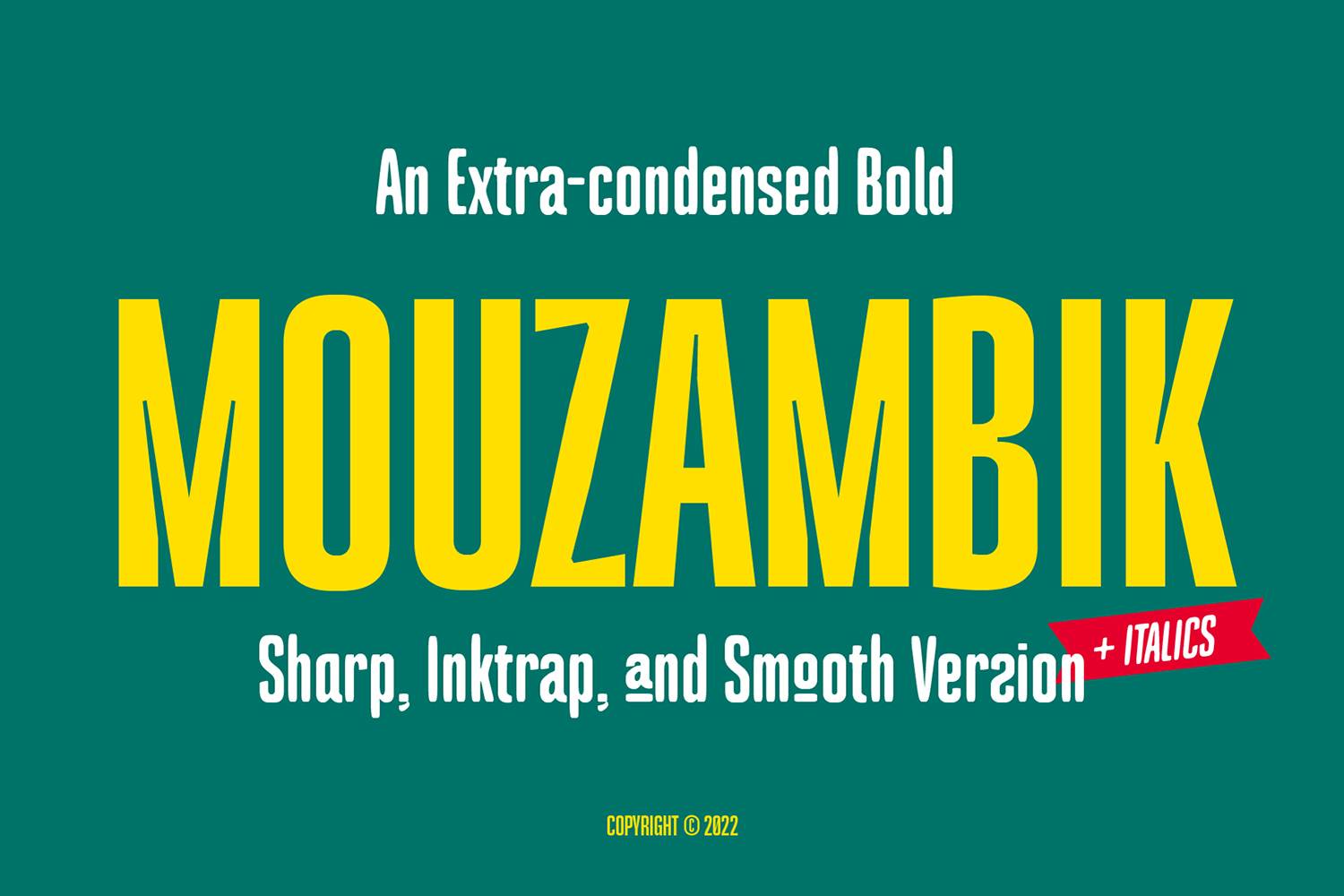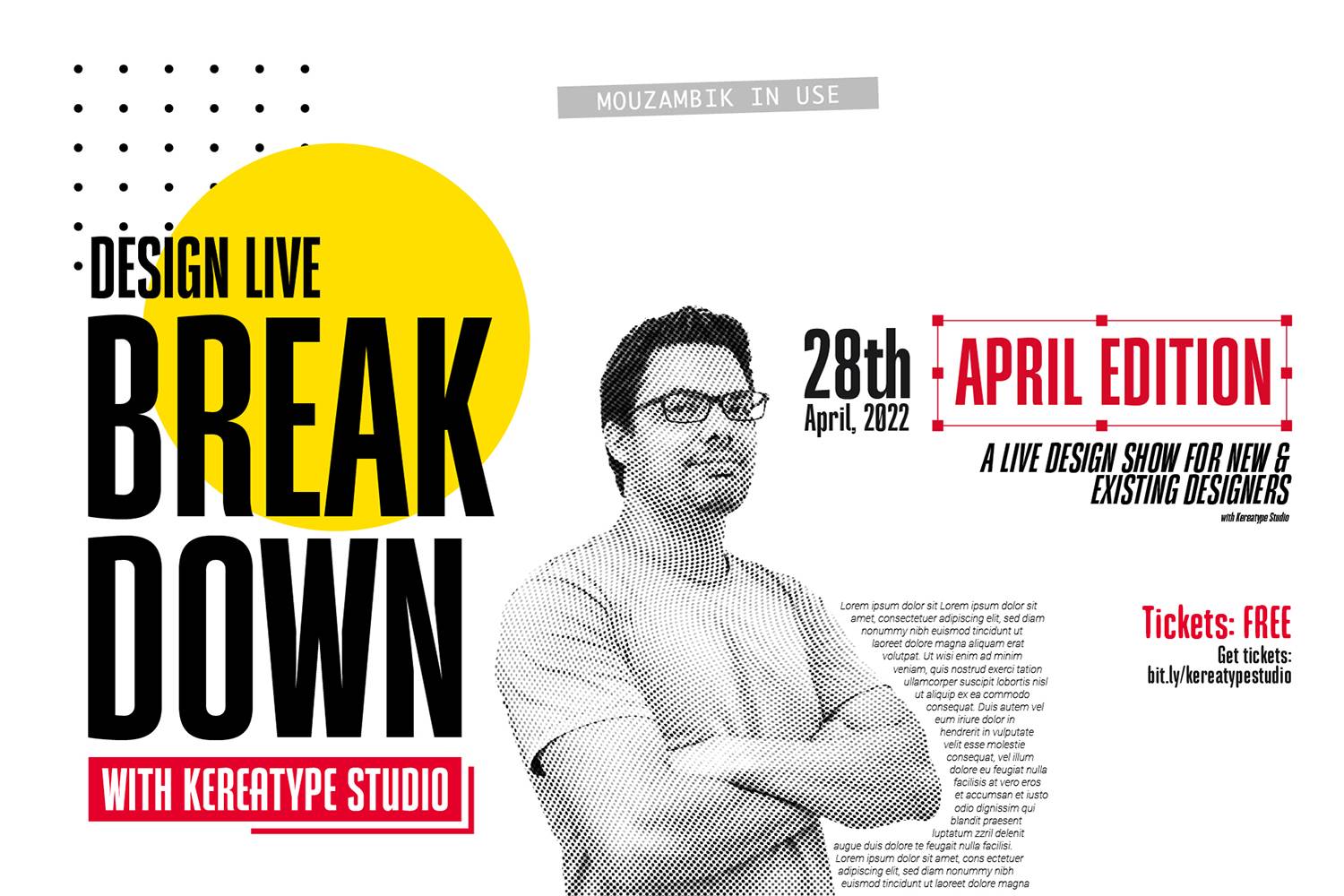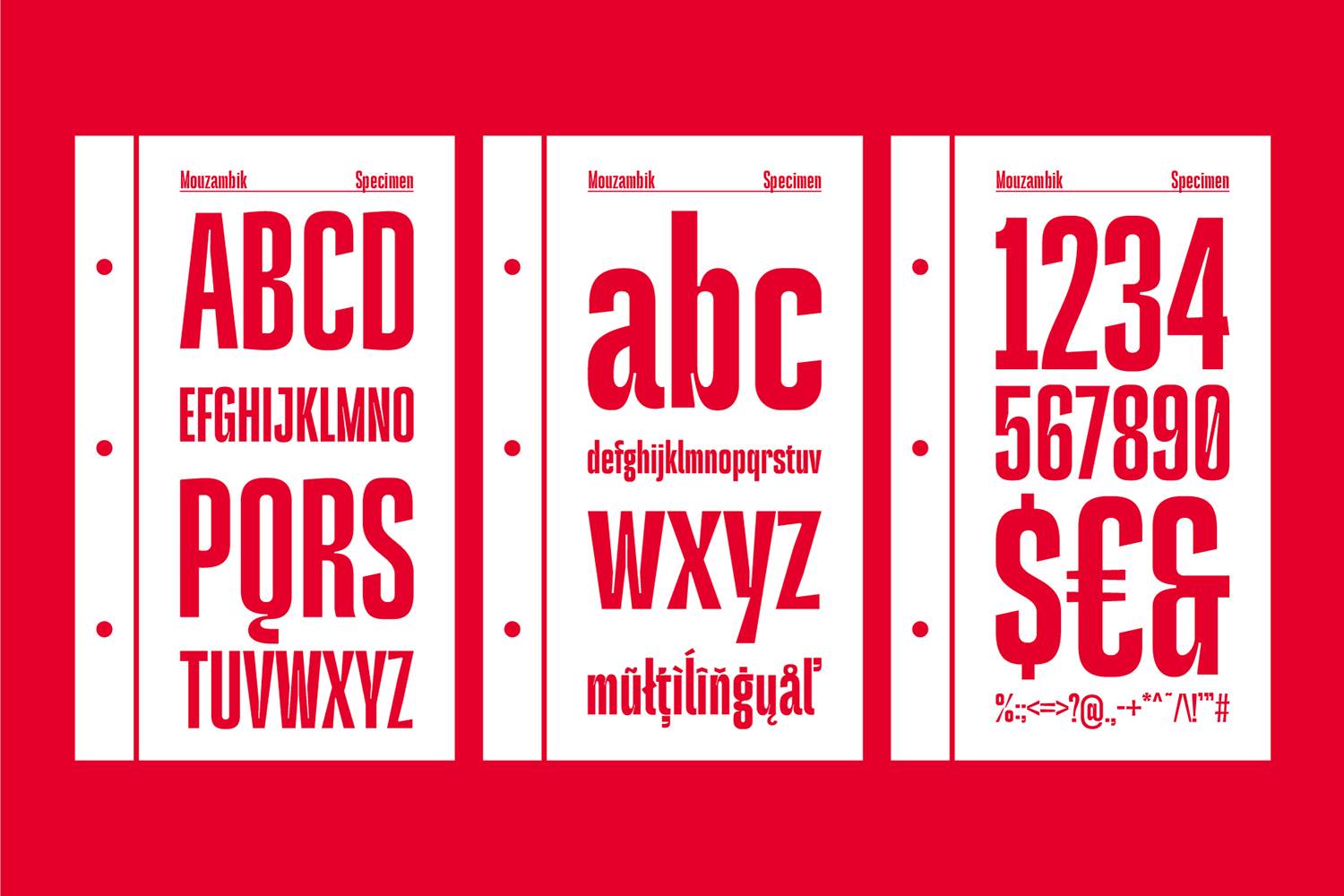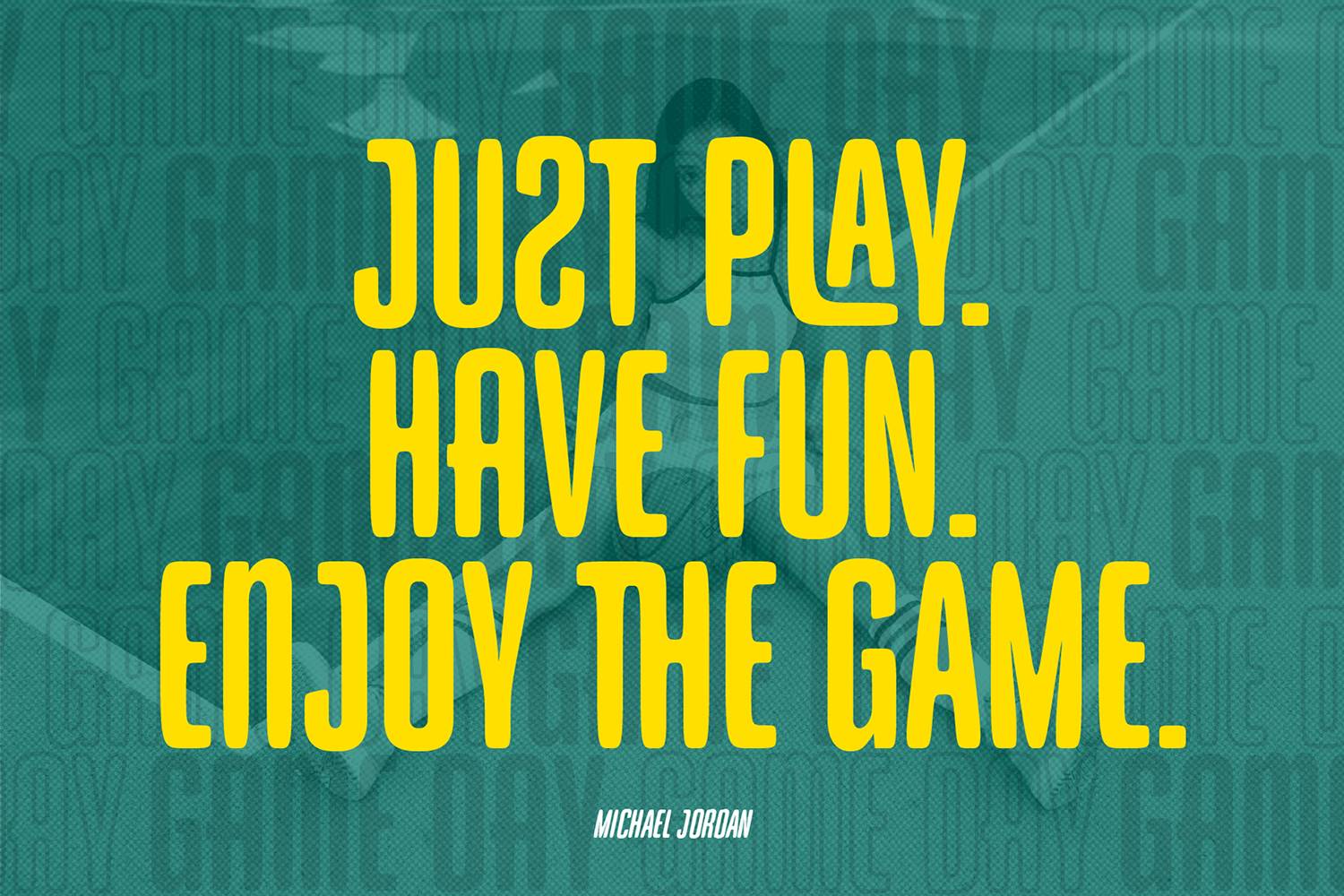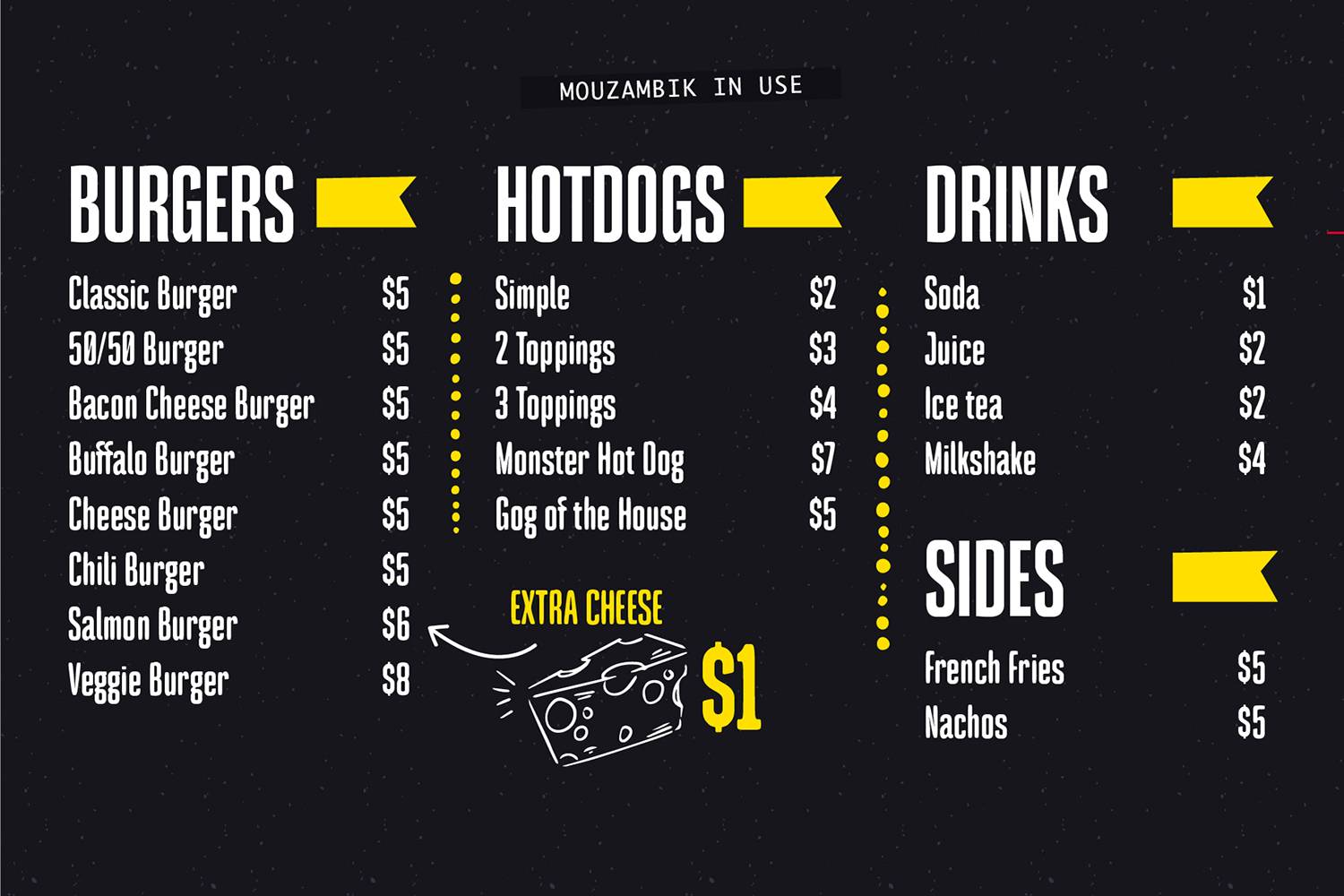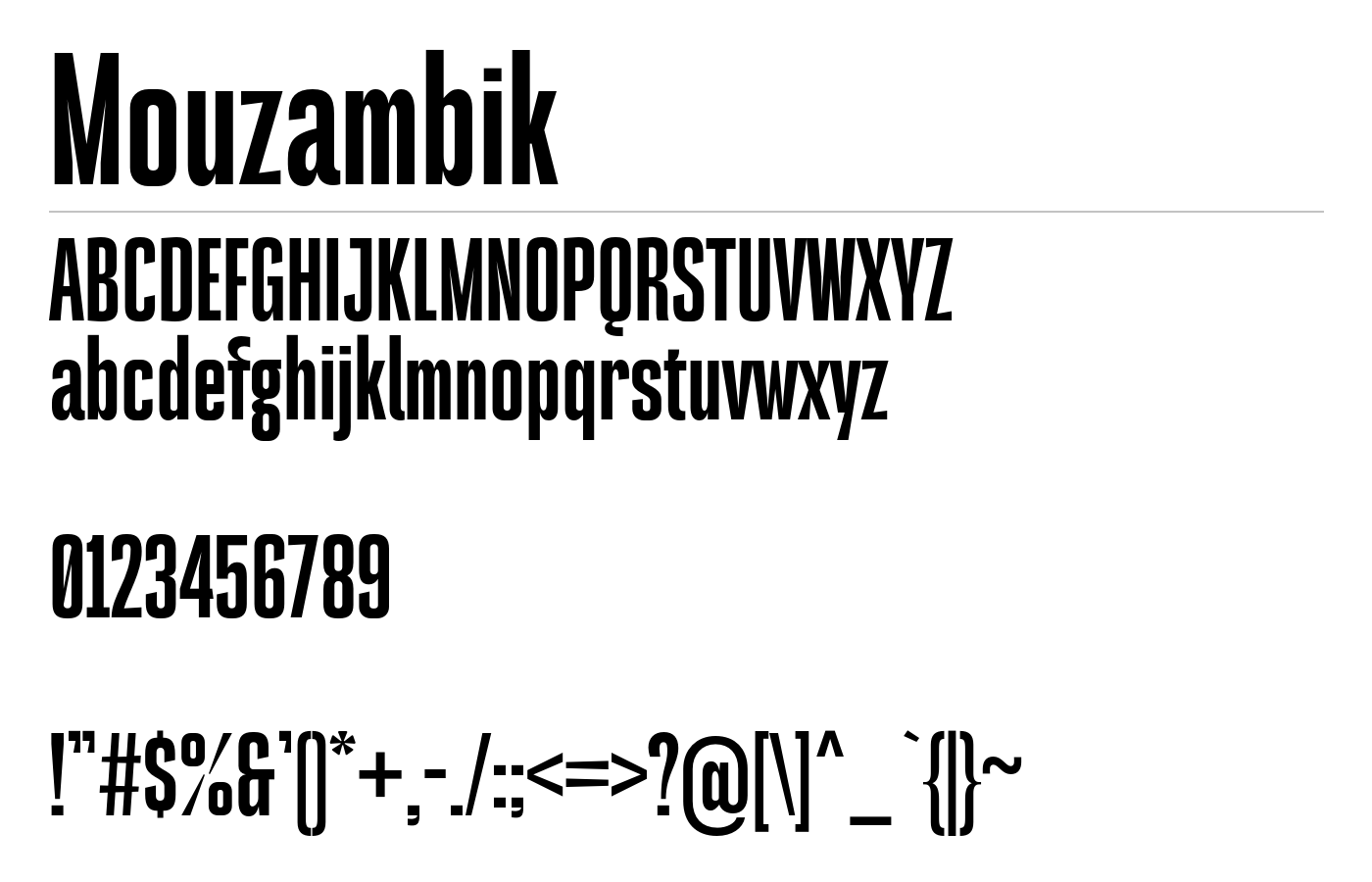
Mouzambik is a bold, condensed sans serif font with a tall x-height and an intense vertical emphasis. Its consistent stroke weight and narrow letterforms give it a strong, modern, and industrial feel, making it ideal for impactful headlines, posters, and branding where a confident and striking presence is needed. This font works well in editorial design and urban-style projects that demand a sleek, no-nonsense aesthetic.
Mouzambik Font
About Mouzambik Font